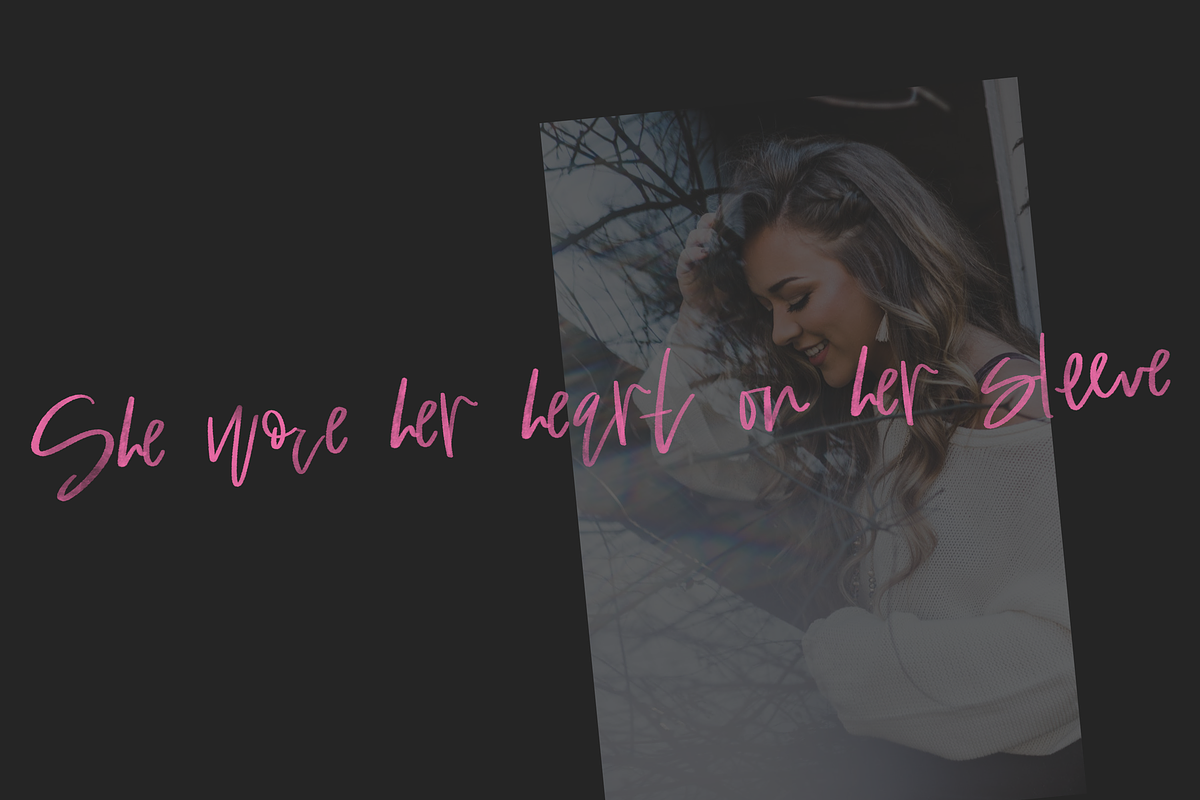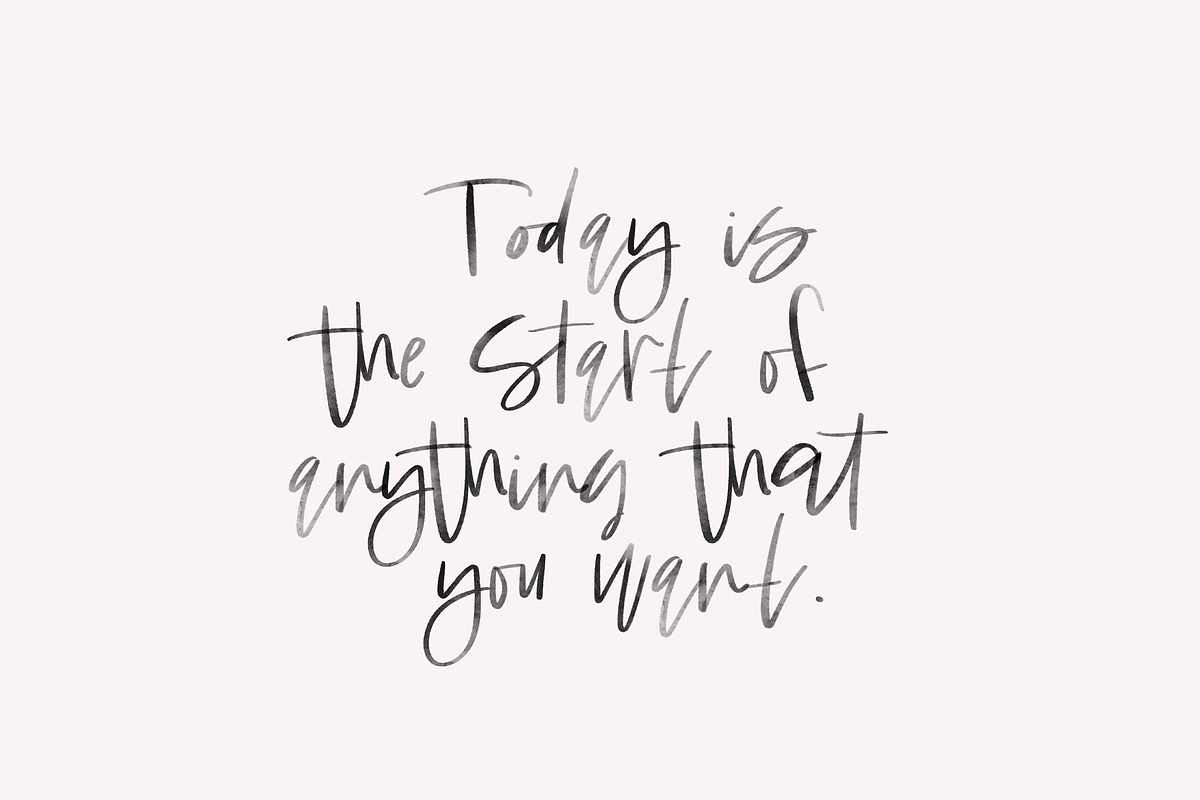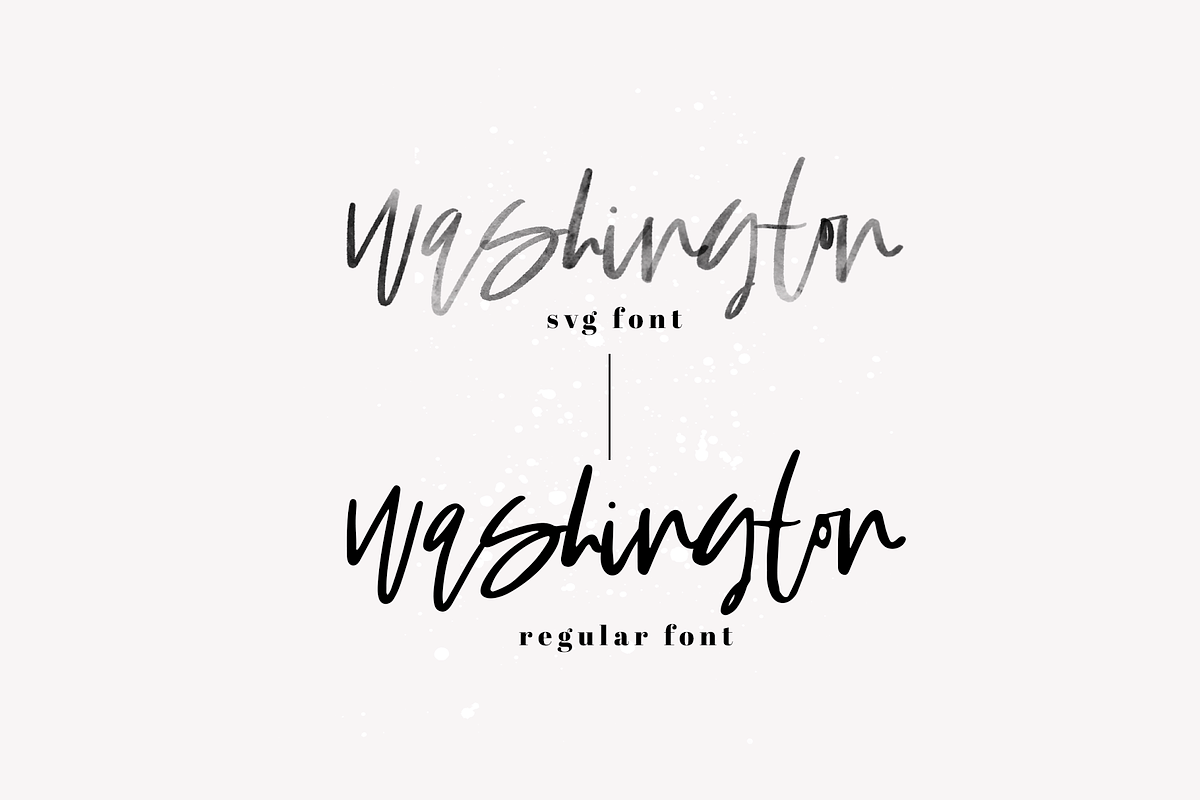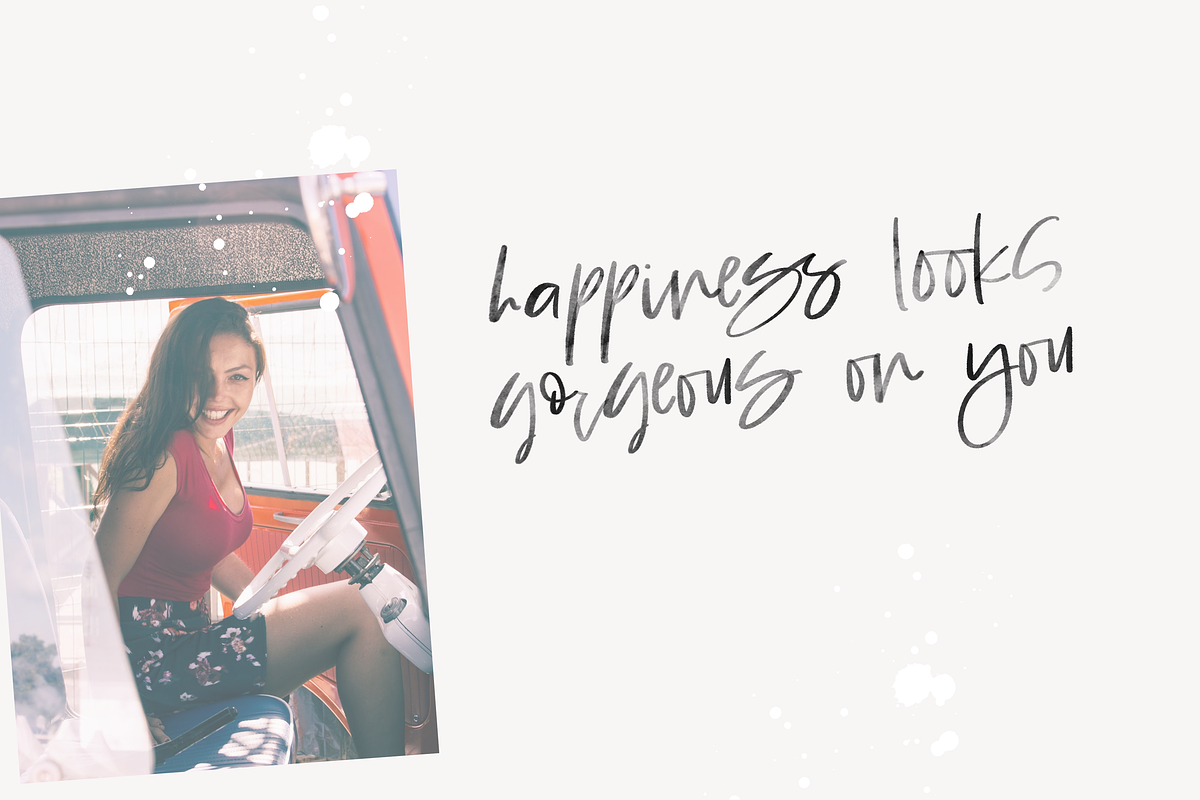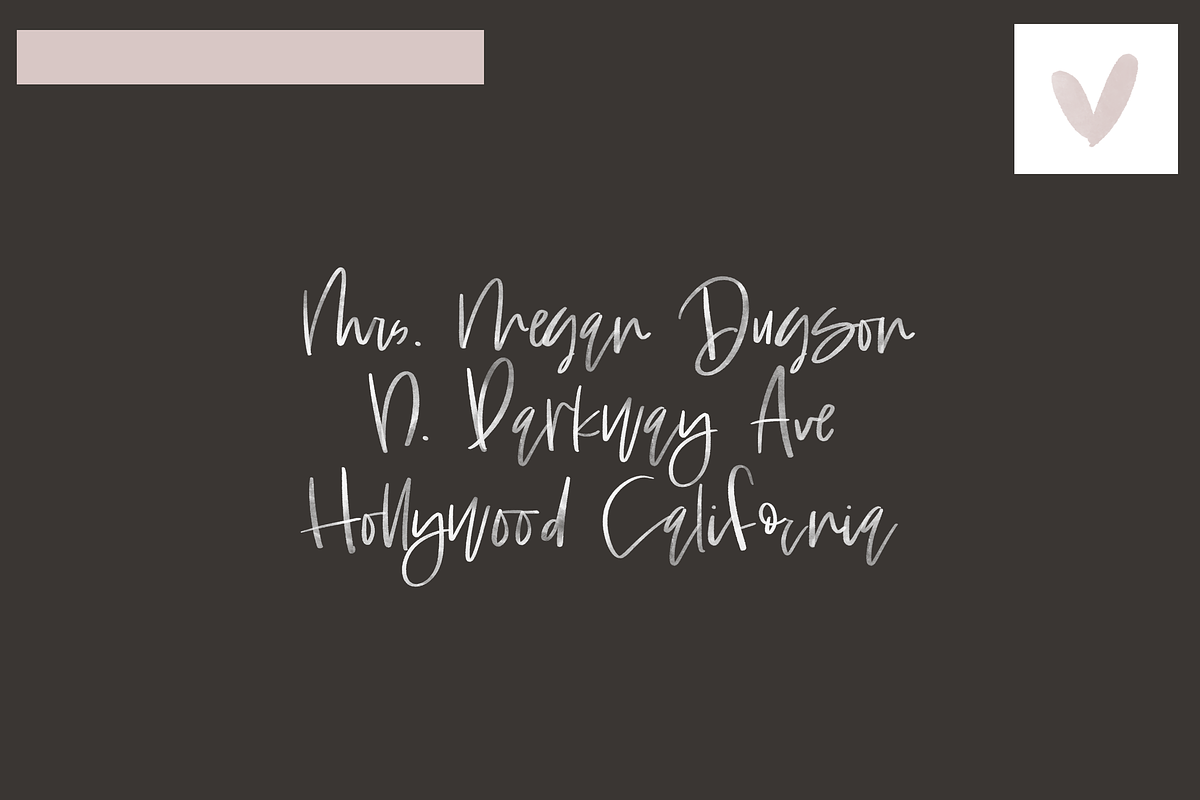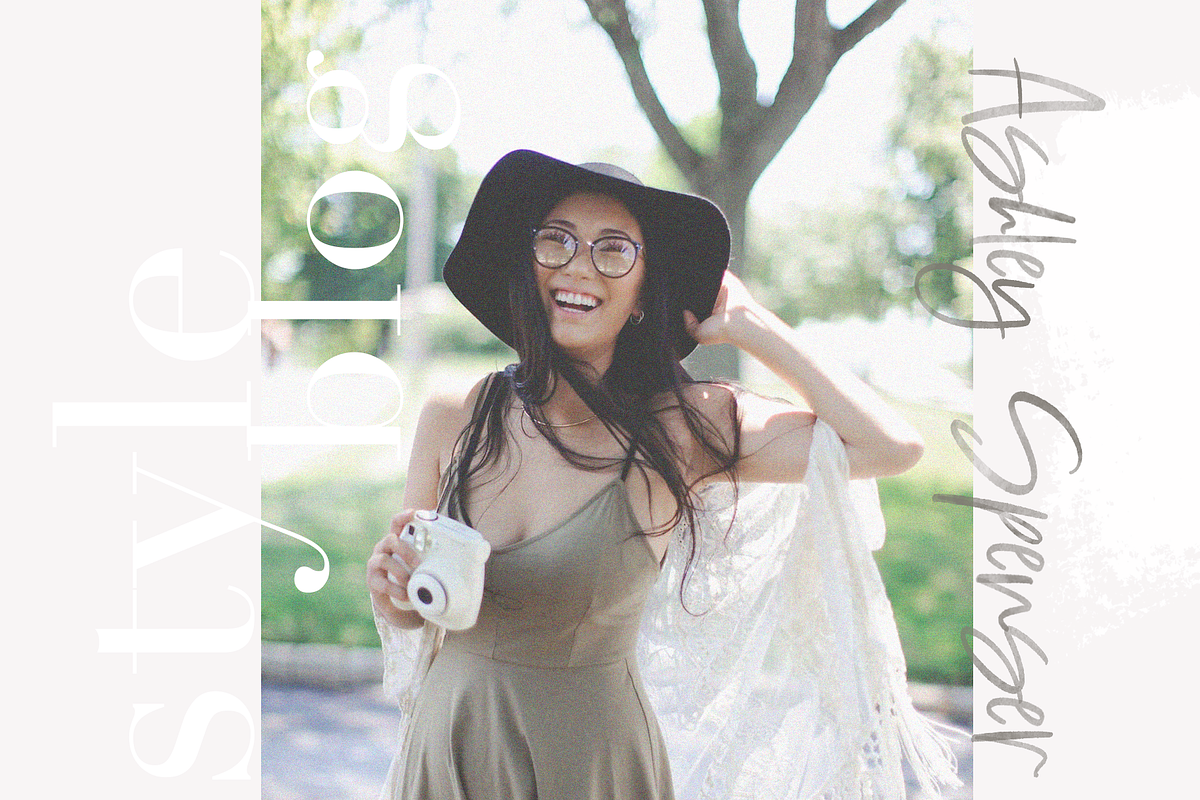
Washington - SVG & Solid Script Font
Washington is handwritten font with a messy, modern calligraphy look!
Each letter has been drawn by hand keeping the untouched texture for the SVG font. If you are unable to access SVG fonts, a solid style is accessible.
Washington is perfect for modern projects, headings, blogs, logos, brandings, invitations and more!
Accent characters are not included at this time.